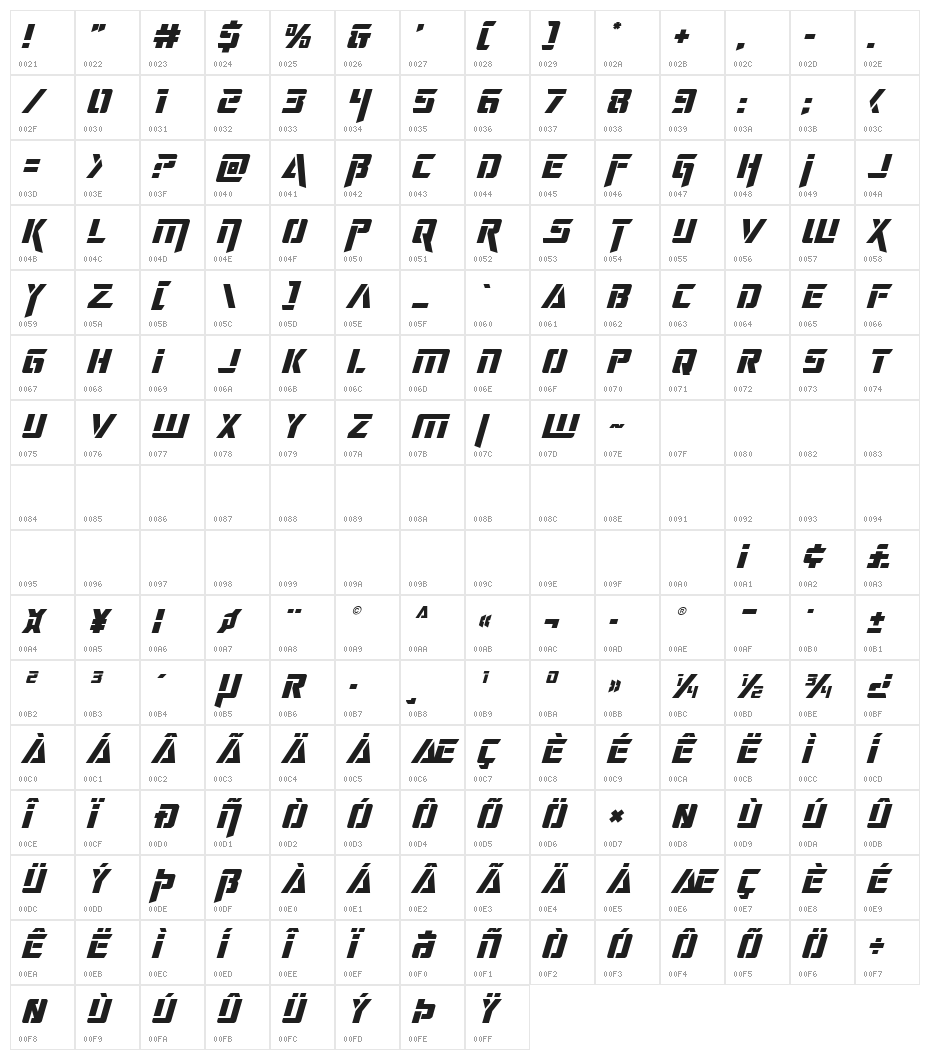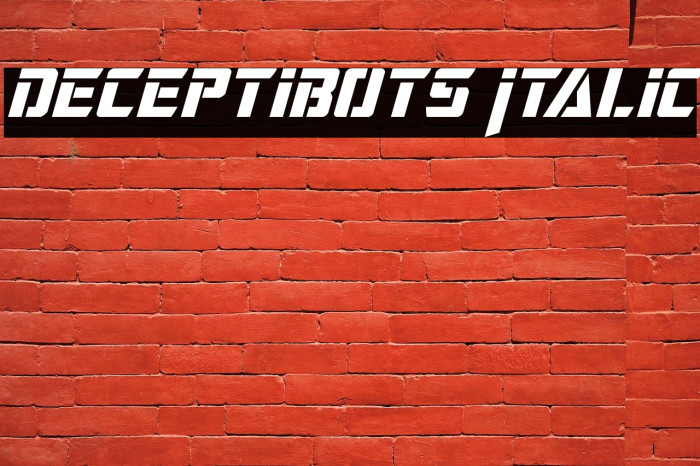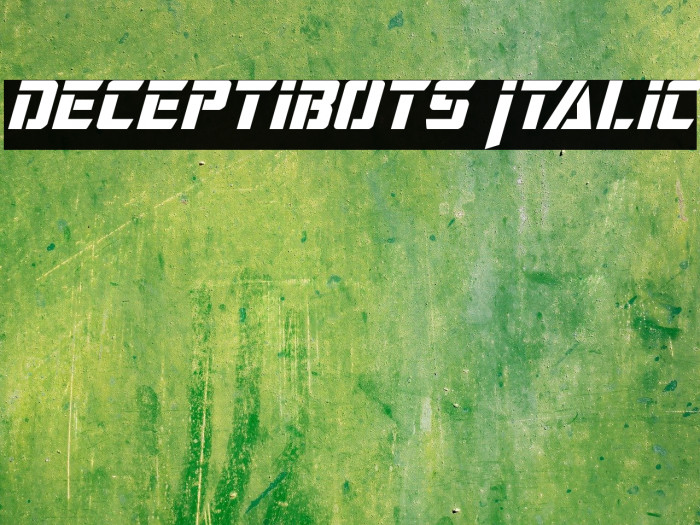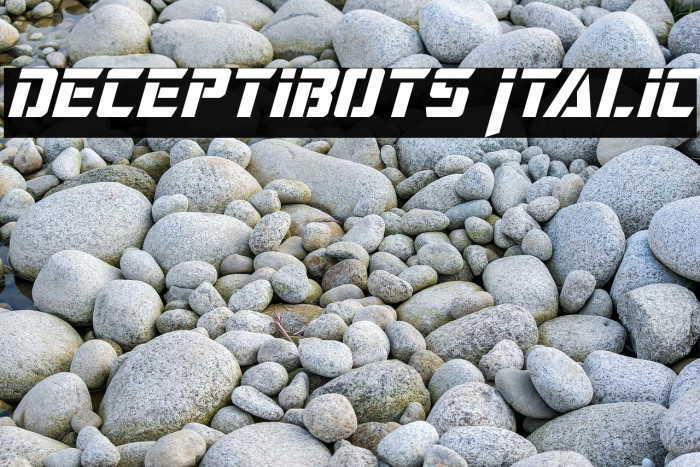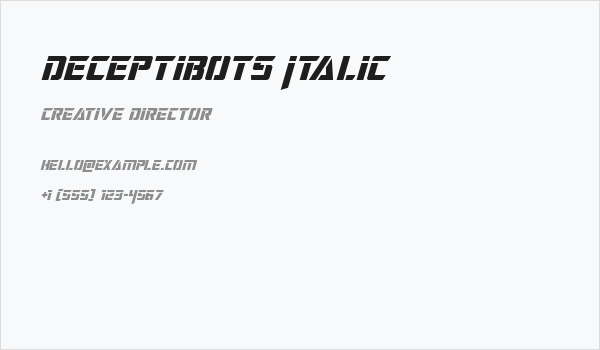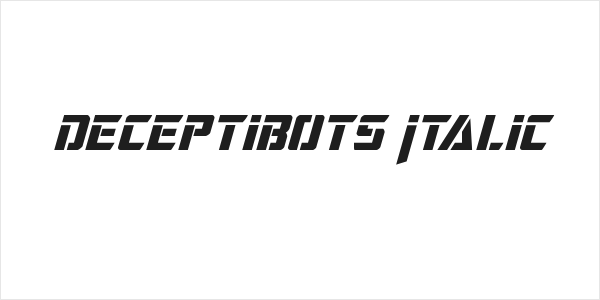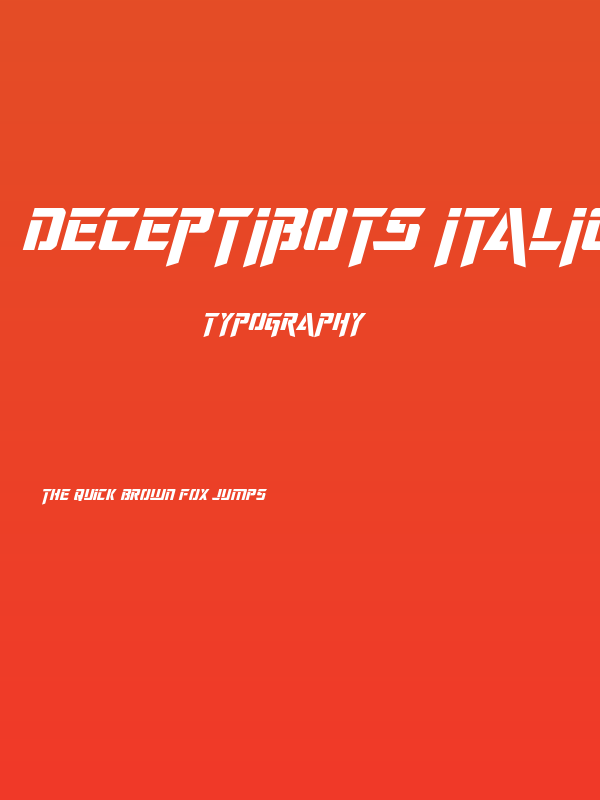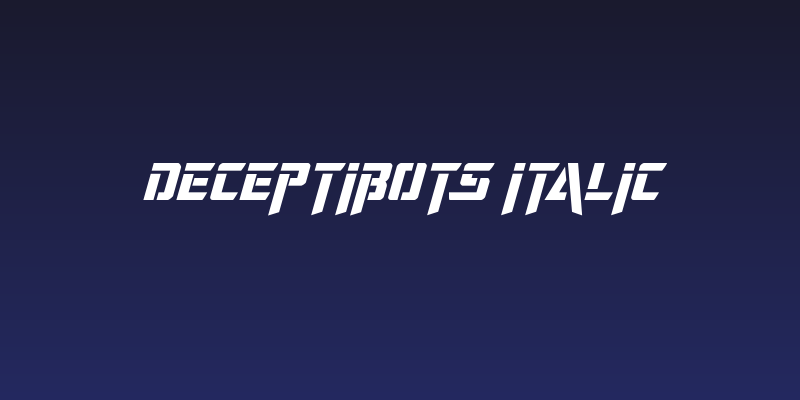
Deceptibots Italic Font
Deceptibots Italic Description
This font features a bold, angular design with a futuristic and mechanical aesthetic. The characters are italicized, giving a sense of motion and speed. The sharp edges and geometric shapes create a dynamic and aggressive look, reminiscent of science fiction themes. The uppercase and lowercase letters maintain a consistent style, with a strong emphasis on diagonal lines and sharp corners. The numbers and special characters follow the same design principles, ensuring a cohesive appearance across all elements. This font is ideal for projects that require a modern and edgy feel.
| Proposed Projects | Ideal for sci-fi themed designs, video game titles, movie posters, and branding for tech companies. |